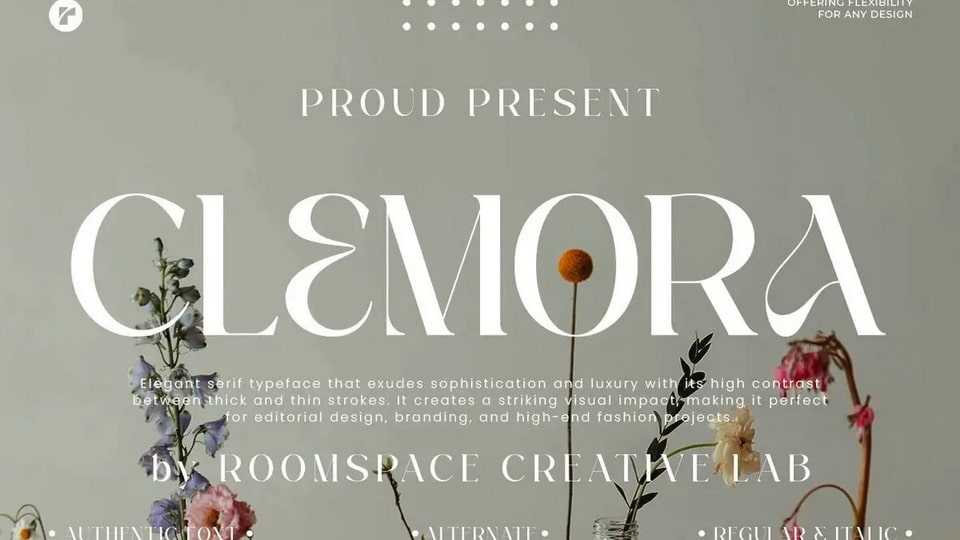
Download Clemora font, an elegant serif that blends classic sophistication with a modern touch, inspired by the world of fashion and editorial design.